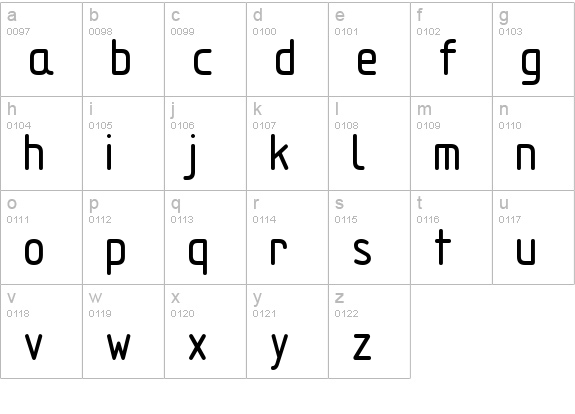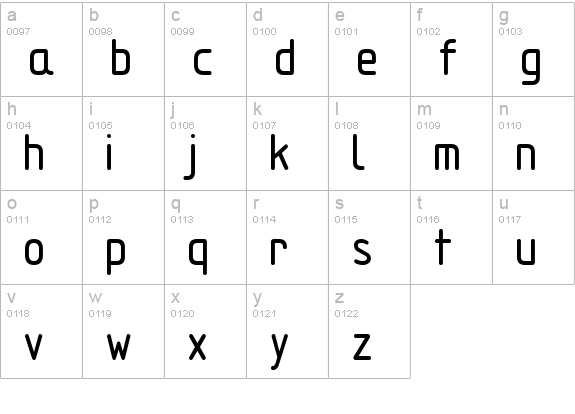
TechnicznaPomocRound is a stunning and innovative font that is specifically designed to bring a touch of modernity and sophistication to your design projects. This font is characterized by its rounded edges and geometric shapes, which give it a clean and sleek appearance. With its unique and eye-catching design, TechnicznaPomocRound is perfect for various design purposes, including logos, branding, advertising, headings, and more. What makes TechnicznaPomocRound even more remarkable is that it is absolutely free! Yes, you heard it right. This amazing font is freely available to download at FontsMarket.com. You can now add this font to your collection without any cost, allowing you to explore its endless creative possibilities without breaking the bank. With TechnicznaPomocRound, you can effortlessly create designs that stand out from the crowd. Its versatility allows it to adapt to any project, whether it's a bold and attention-grabbing headline or a subtle and elegant logo. The rounded edges of this font give it a friendly and approachable vibe, making it perfect for designs that require a touch of warmth and friendliness. The clean lines and balanced proportions of TechnicznaPomocRound ensure readability and legibility in both large and small sizes. This makes it suitable for various mediums, including print, digital, and web design. Whether you're creating posters, websites, brochures, or social media graphics, this font will bring a touch of modern sophistication to your work. So why wait? Download TechnicznaPomocRound for free at FontsMarket.com and unleash your creativity. This font is not only visually appealing but also incredibly easy to use, making it a must-have for any designer or enthusiast. Don't miss out on this amazing opportunity to enhance your design projects with a high-quality and freely available font. Get TechnicznaPomocRound today and take your designs to the next level!